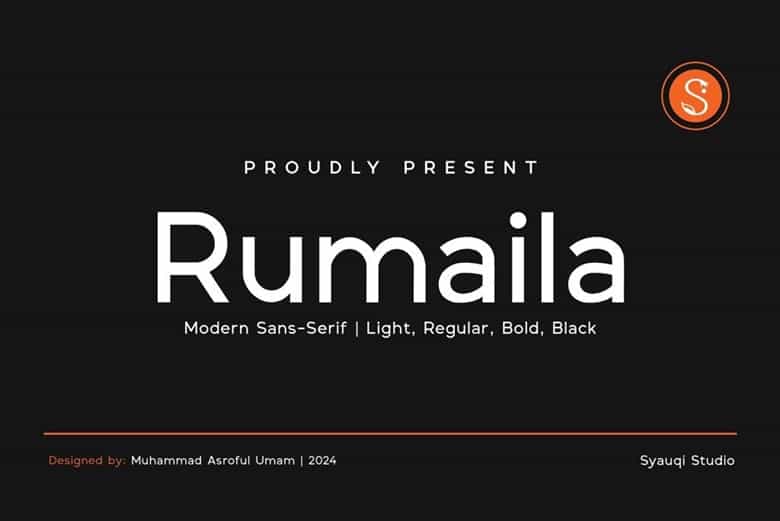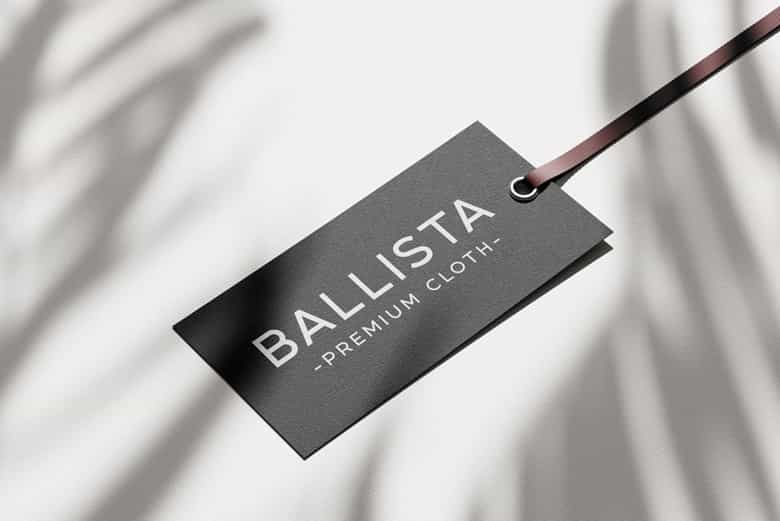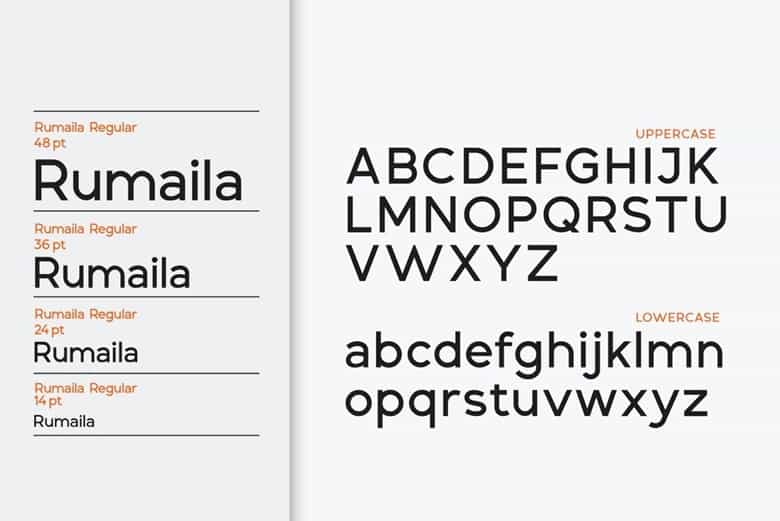
Rumaila is a new modern sans-serif typeface which reflects the patterns of orderliness and polish. Being a set of sleek and harmonious shapes, Rumaila fits into brand identity, digital environments, and print materials.